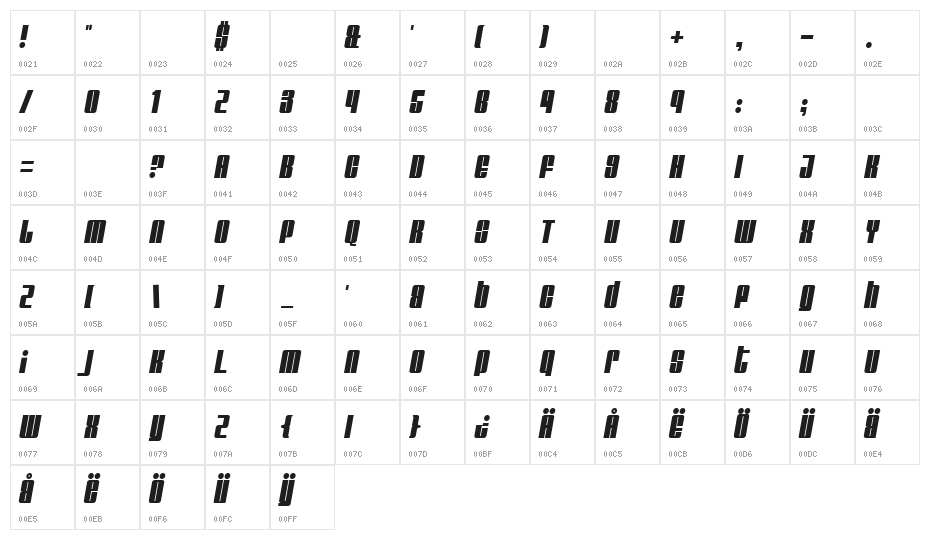
Glare Italic Font
Glare Italic Description
This font features a bold and dynamic style with a strong italic slant, giving it a sense of motion and energy. The characters are wide and have a condensed appearance, with thick strokes that create a high contrast between the thick and thin parts of the letters. The uppercase and lowercase letters maintain a consistent style, with sharp angles and a modern aesthetic. The numerals and special characters follow the same bold and slanted design, ensuring uniformity across all glyphs. This font is particularly striking and would stand out in any design project.
| Proposed Projects | Ideal for sports branding, dynamic posters, modern advertisements, and eye-catching headlines. |